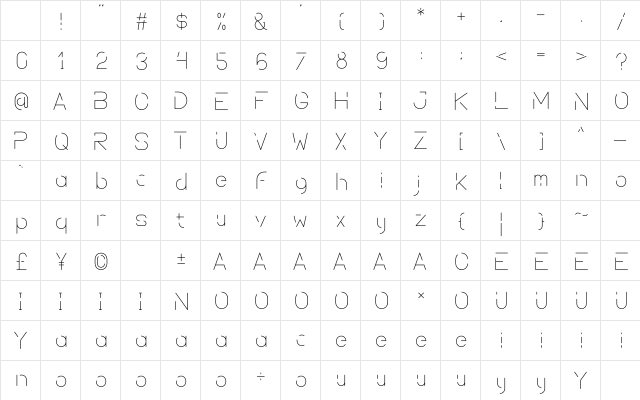
Complete SPACE FUTURE LIGHT Light glyph index. Displaying only characters natively supported by SPACE FUTURE LIGHT Light font.
SPACE FUTURE LIGHT has a distinctly futuristic character, with geometric precision and clean angles that feel at home in technology, gaming, and sci-fi contexts. Its slender proportions lend an understated elegance to any composition.